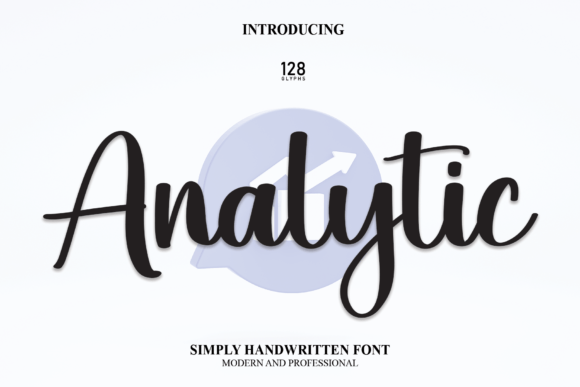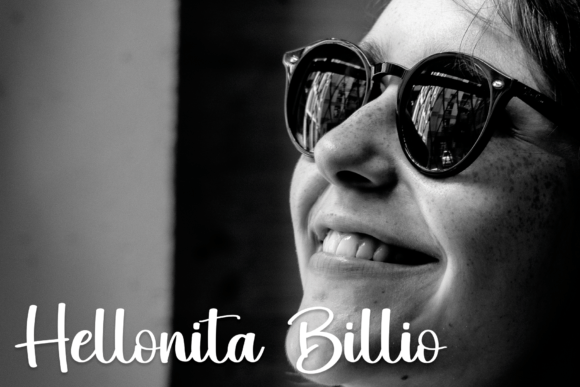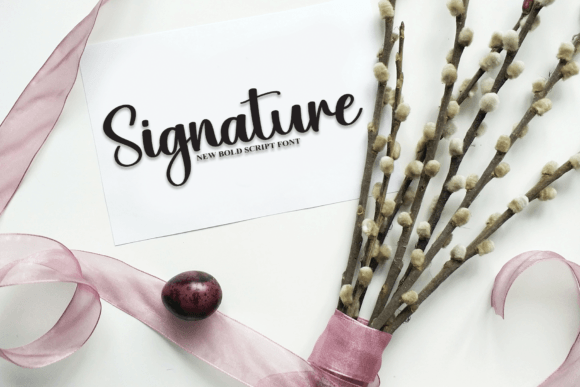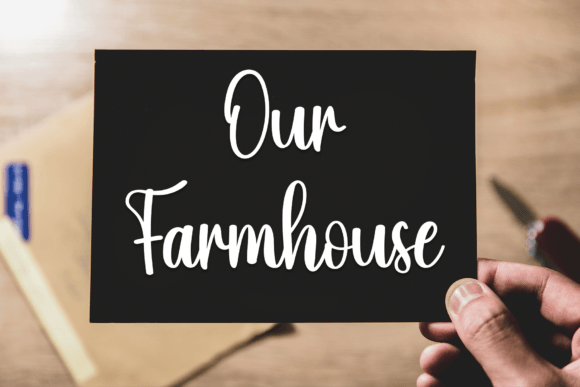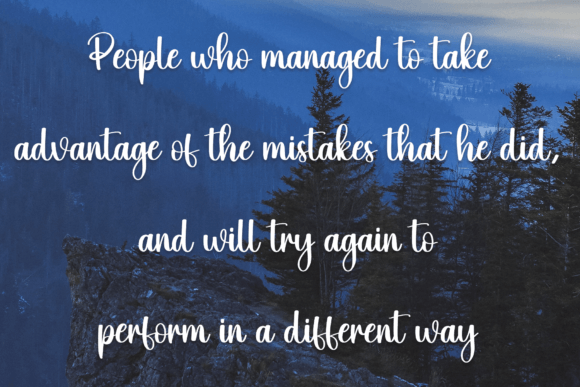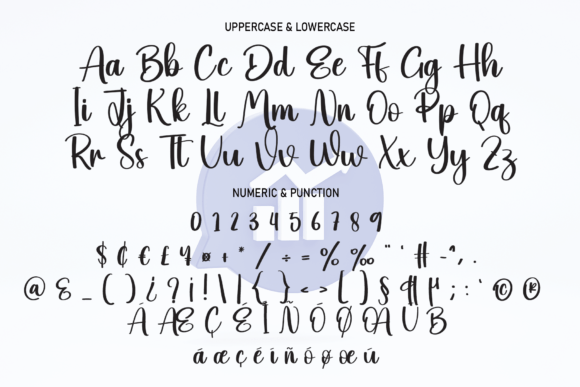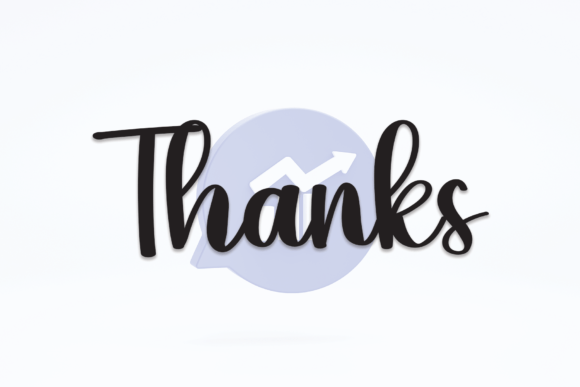
Analytic Font
About Analytic Handwritten Font
Analytic Handwritten Font is a stylish and modern script typeface inspired by the elegance of calligraphy. With smooth strokes and graceful proportions, it blends classic artistry with contemporary charm. Because of its versatility, Analytic Handwritten Font is ideal for invitations, logos, packaging, wall displays, posters, labels, photography, and social media graphics.
A Handwritten Typeface with Modern Elegance
Handwritten fonts add warmth and personality to design, and Analytic Handwritten Font expresses this perfectly. Its strokes are not too thin or too thick, creating a balanced rhythm that ensures readability and style. In addition, its clean and polished look makes it suitable for both personal projects and professional branding.
Special events require fonts with character, and Analytic HandwrittenFont delivers beautifully. For example, it can transform wedding invitations, thank-you notes, and menus into elegant works of art. Moreover, it works wonderfully for seasonal greeting cards, festive stationery, and birthday designs, giving them a unique and heartfelt touch.
A Script Typeface for Branding and Packaging
Businesses and designers can also rely on Analytic HandwrittenFont to enhance brand identity. It looks stunning on boutique logos, product labels, and packaging. Furthermore, it adapts easily to advertising materials, magazine layouts, and promotional campaigns. When paired with minimalist sans serif fonts, it creates a professional yet creative design.
Flexible Across Print and Digital Media
Another advantage of Analytic Handwritten Font is its adaptability across mediums. In print, it elevates posters, brochures, and merchandise with elegance. Digitally, it integrates seamlessly into websites, blogs, and online stores. Since it scales clearly from small icons to large banners, it delivers consistent results in every format.